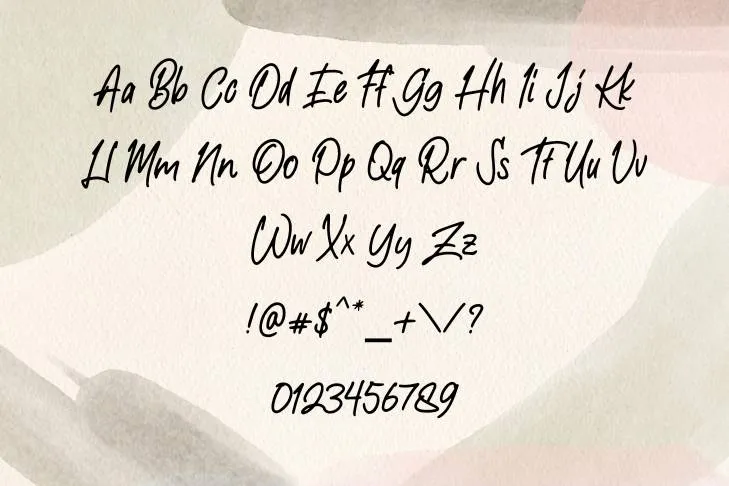
Aesthetic Notes Font is a contemporary and delicate Calligraphy typeface that can be employed to add personality and creativity to the patterns designed with this font. the Letterhend Studio beautifully designs it and the designer took inspiration to develop this typeface from handwritten notes and messages.
This elegant typeface is comprised of decent and modern Calligraphy lettering style and portrays a sleek and clean look which makes it ideal for conveying various moods and emotions. Another best feature of this typeface is its versatility as it can be optimized for both print and digital media purposes.
Where to Use Aesthetic Notes Font?
This exquisite typeface can be employed for a variety of tasks due to its multifaceted aspect and the visibility of its characters. It works well with both simple and complicated designs including marketing campaigns, logo designs, creating stunning website interfaces, video game consoles, posters layouts; so and so forth. When you combine this typeface with the inter font, you have the potential to create stunning displays.
It is comprised of slender and slanted characters which go perfectly for creating invitation cards for various purposes. Various fashion designers employ this impressive typeface to etch letters on different kinds of apparel and to create customized graphic tees and trousers.
Pairing Suggestion for Aesthetic Notes Font
This stunning typeface can be paired with other fonts seamlessly and easily. It exhibits a modern and classy look when combined with Sans-serif fonts such as Futura, Open Sans, and Helvetica. Whereas, it also makes a fantastic pair with Serif fonts such as Georgia and Times New Roman as these fonts can be employed for heading and title purposes.
Name | Aesthetic Notes Font |
Style | Calligraphy |
Designer | Letterhend Studio |
Aesthetic Notes Font Family
This amazing typeface is composed of four weights along with additional styles. Its font family is mentioned below:
- Aesthetic Notes Regular
- Aesthetic Notes Italic
- Aesthetic Notes Bold
- Aesthetic Notes Thin
Aesthetic Notes Font FAQs!
What type of font is Aesthetic Notes font?
It is a contemporary and delicate Calligraphy typeface that can be employed to add personality and creativity to the patterns designed with this font. it is beautifully designed by the Letterhend Studio and the designer took inspiration to develop this typeface from handwritten notes and messages.
Where can I use the Aesthetic Notes typeface?
It works well with both simple and complicated designs including marketing campaigns, logo designs, creating stunning website interfaces, video game consoles, posters layouts; so and so forth.